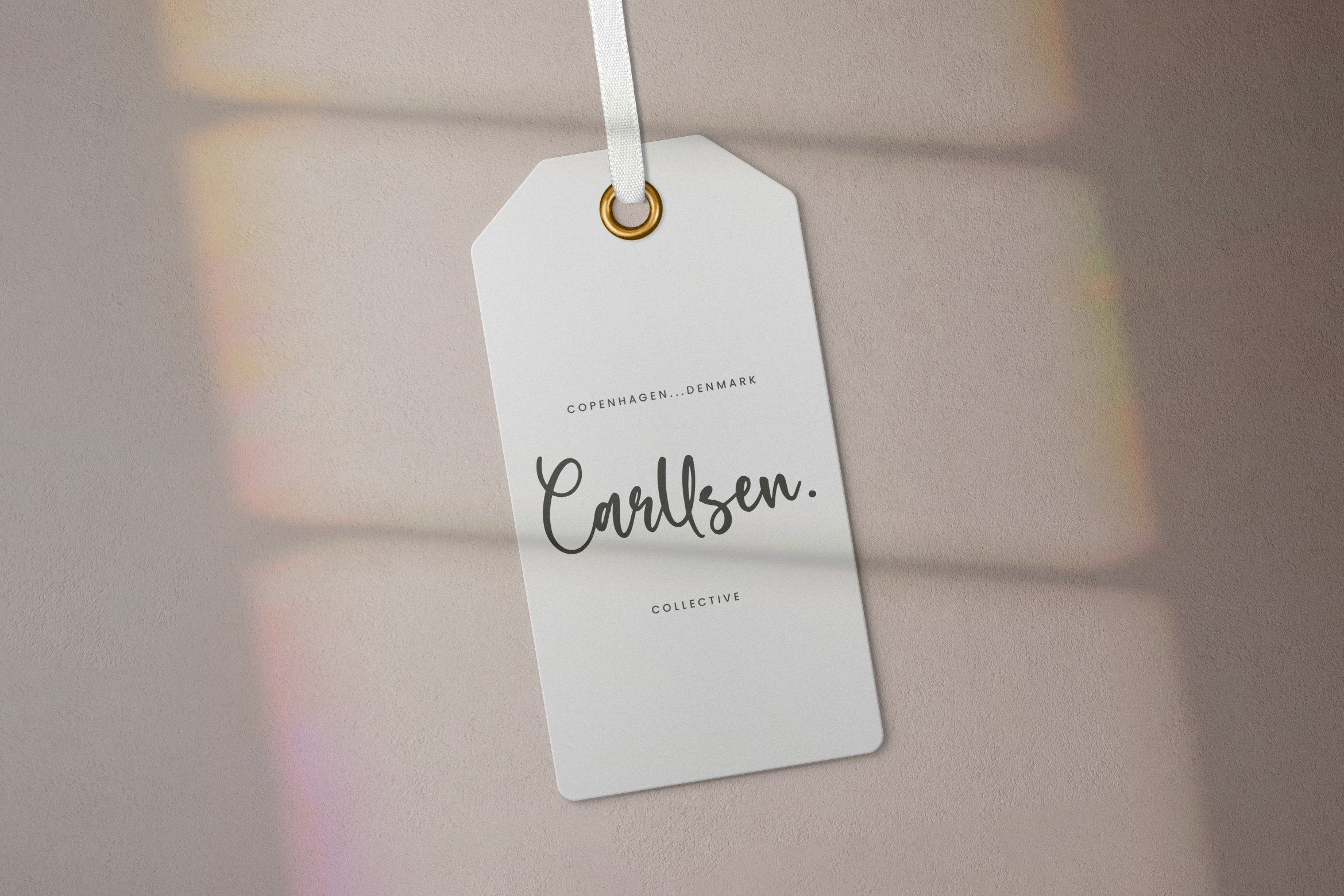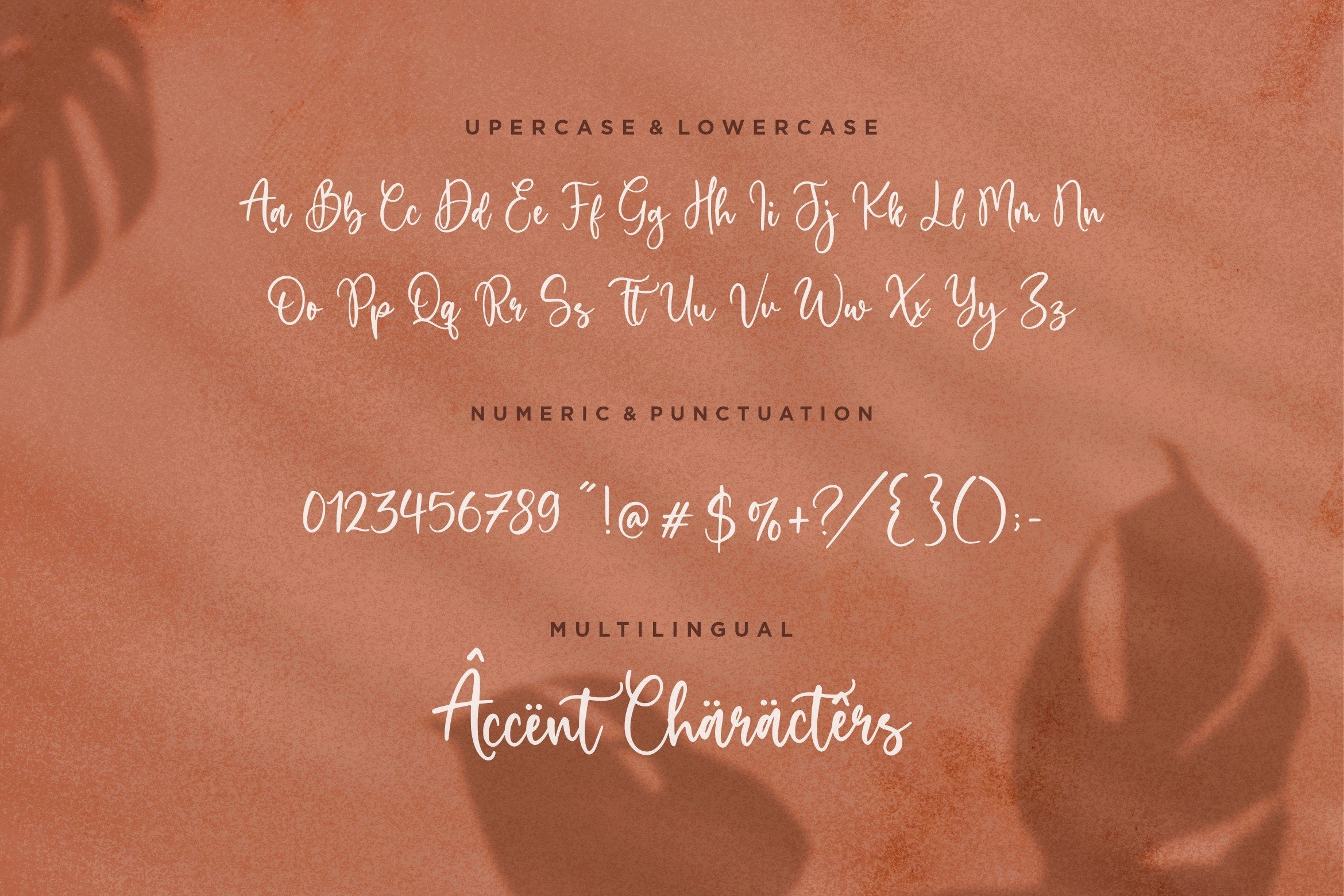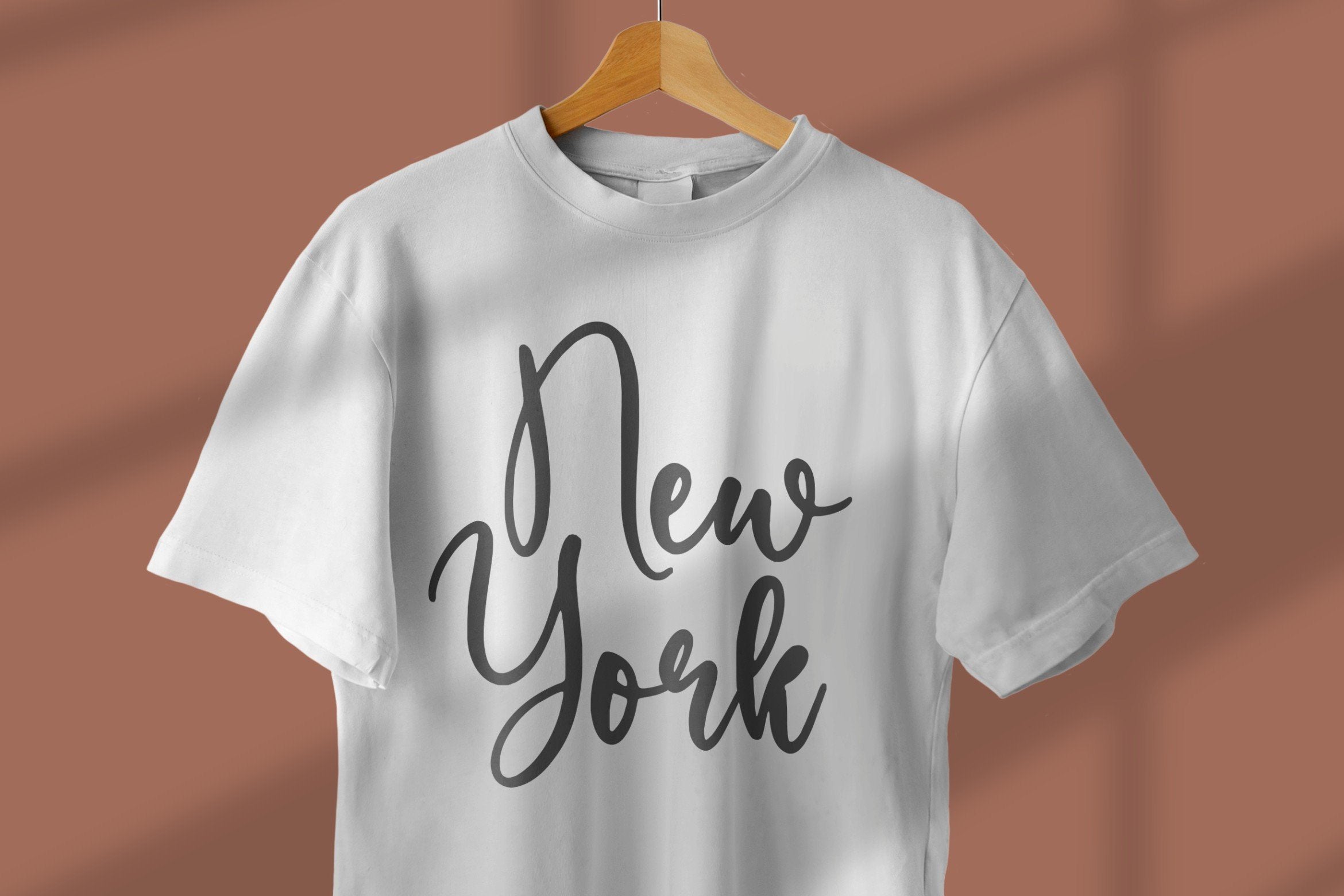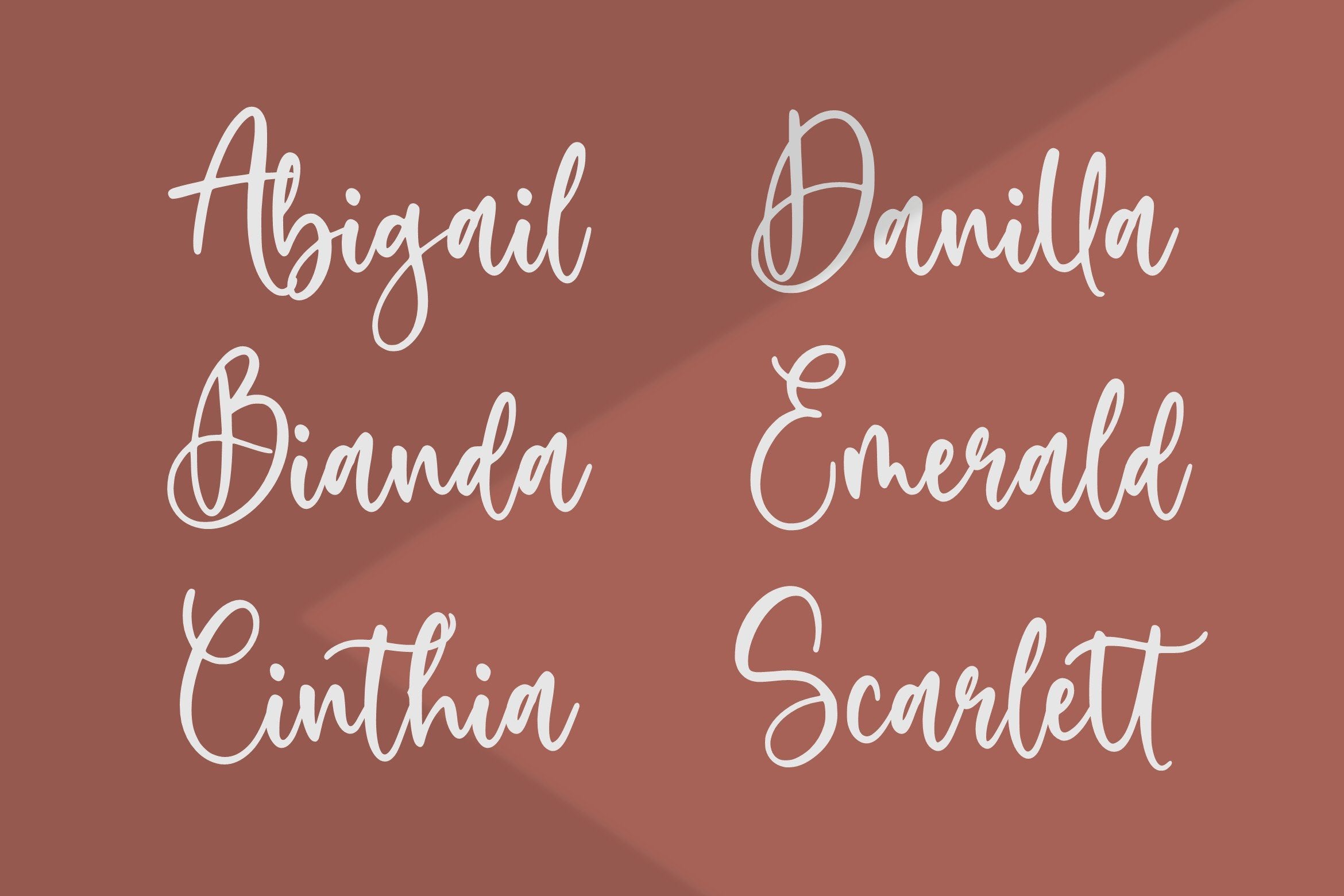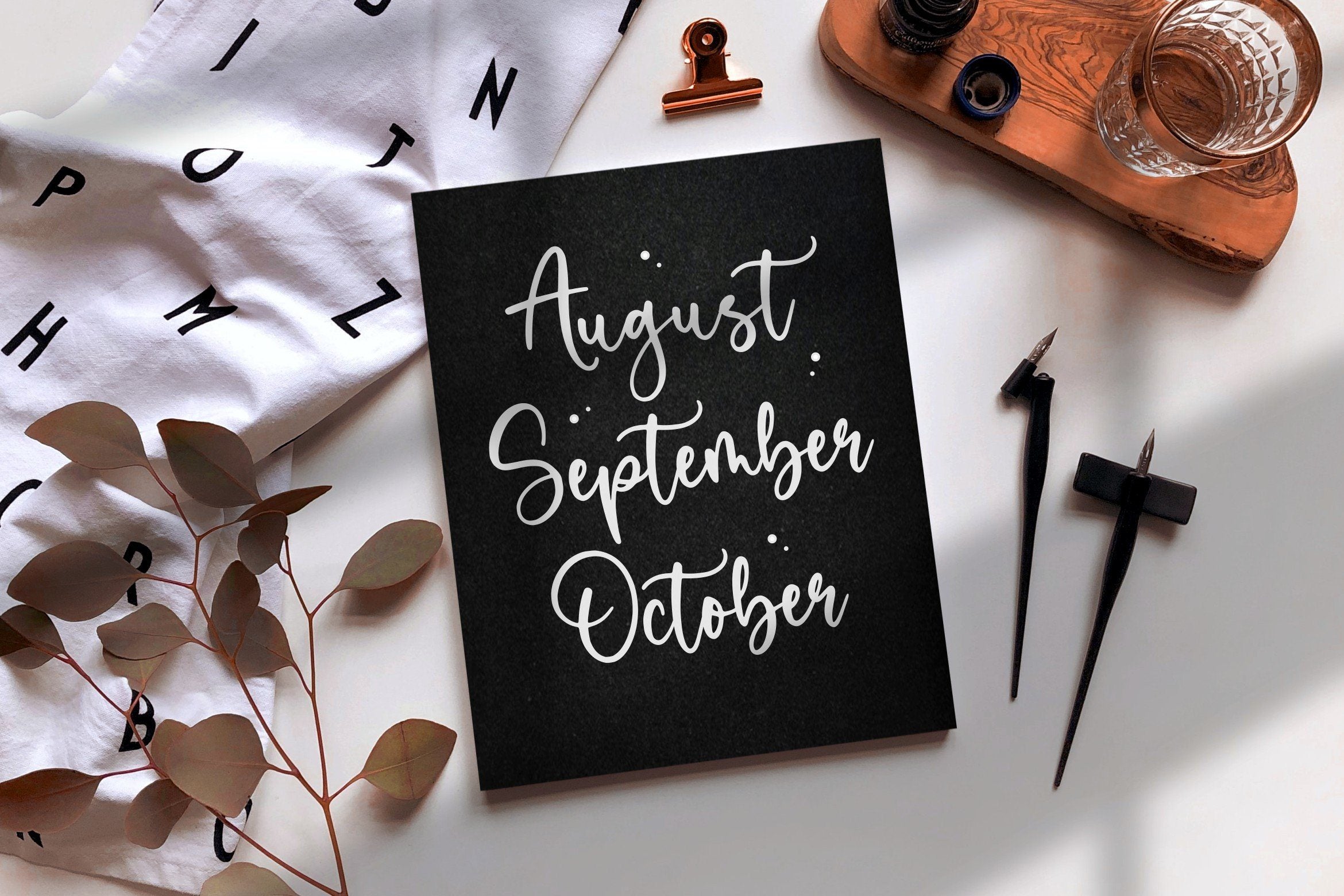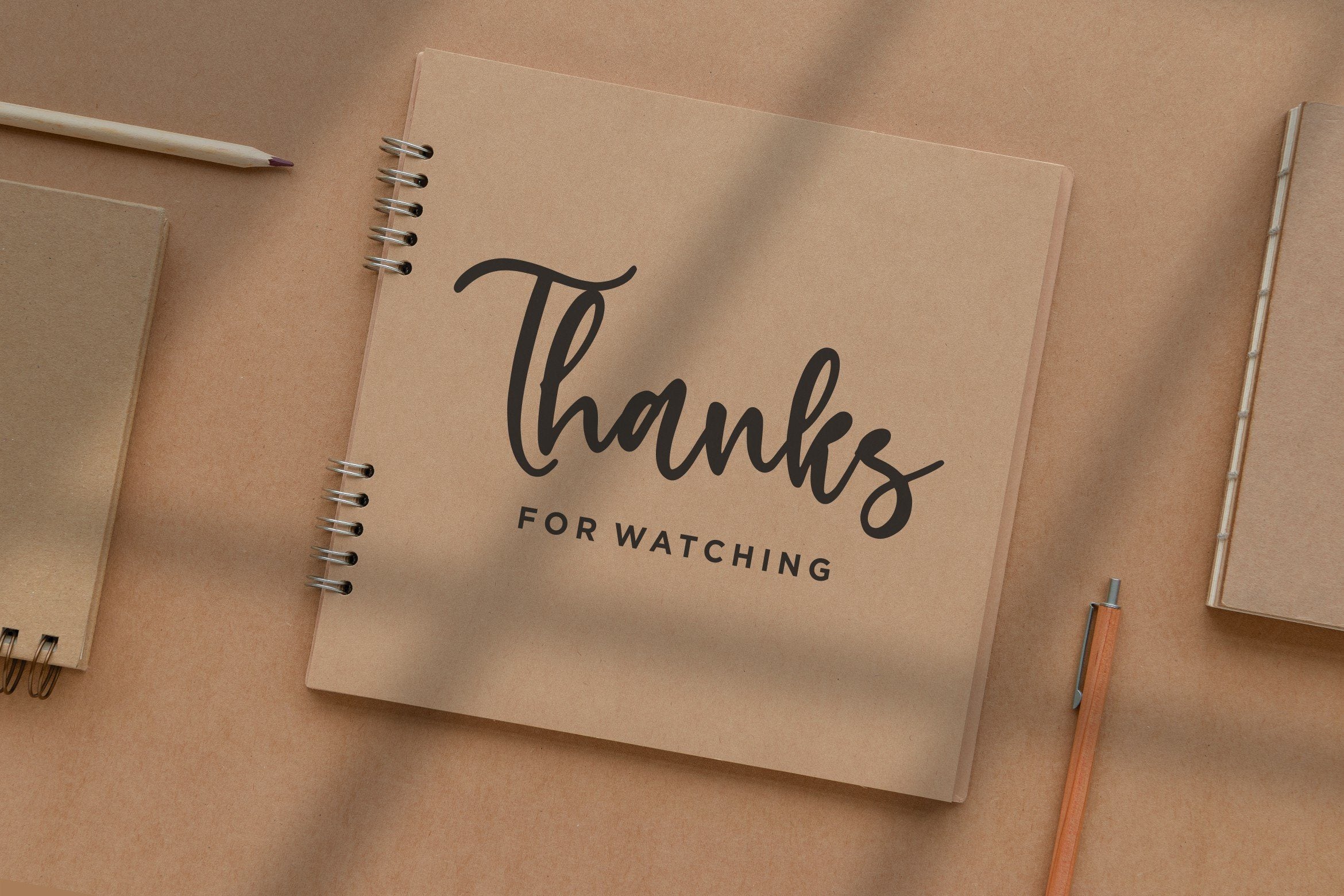
Sweetie Autumn Beautiful Calligraphy Font
About Sweetie Autumn Beautiful Calligraphy Font
Introducing by Balpirick Studio. Proudly Present, Sweetie Autumn Font. Sweetie Autumn is a Beautiful Calligraphy Font. Sweetie Autumn is an elegant script font with a contemporary atmosphere and impeccable form, inspired by timeless classic calligraphy. Not too thin and not too thick, balanced and varied, this font was designed to enhance the beauty of your projects. This font includes TTF, OTF and WOFF, Sweetie Autumn also multilingual support. Enjoy the font, feel free to comment or feedback, send me PM or email. Thank you!